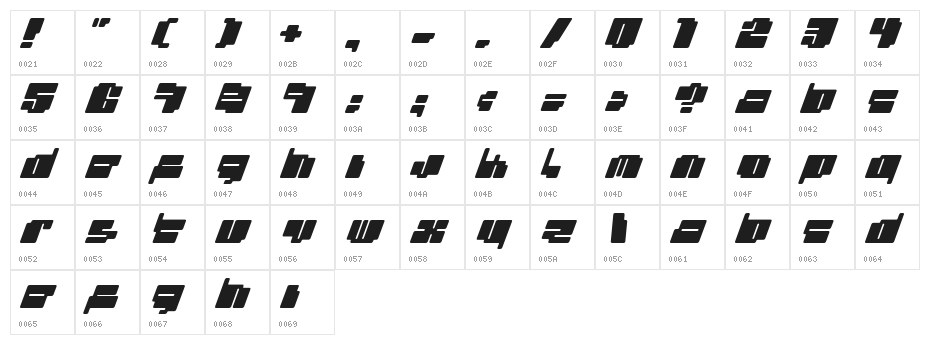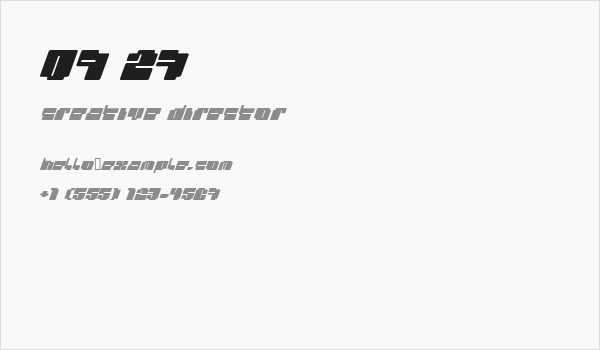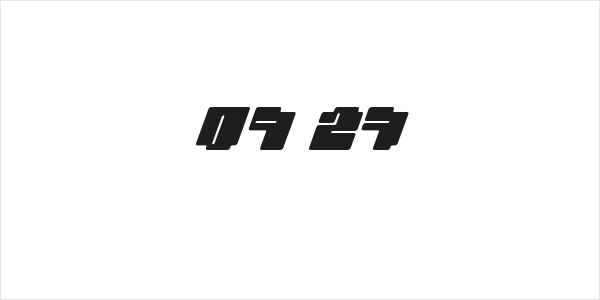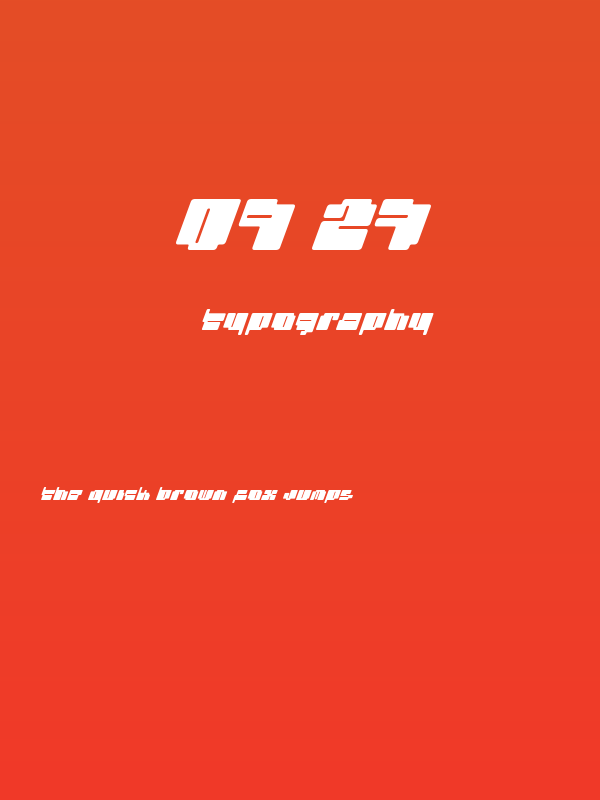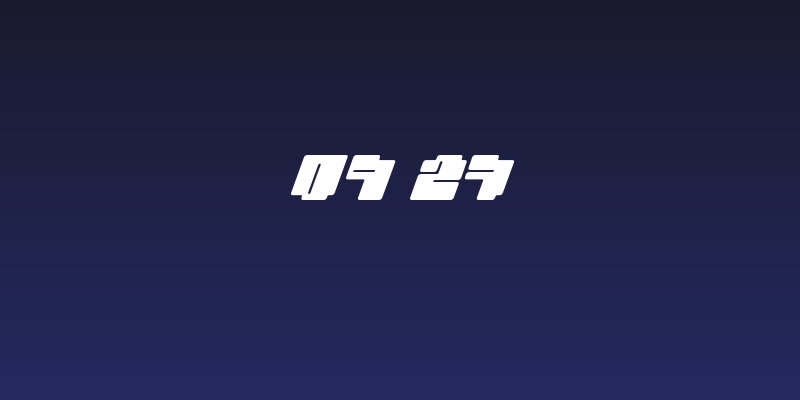
09 27 Font
09 27 Description
This font features a bold, futuristic style with a strong geometric influence. The characters are angular and blocky, giving a sense of speed and modernity. The uppercase and lowercase letters share a consistent style, with sharp edges and a slightly italicized slant that adds dynamism. The numbers and special characters maintain the same aesthetic, ensuring uniformity across all glyphs. The font's design is reminiscent of digital or sci-fi themes, making it ideal for projects that require a modern and edgy look.
Proposed ProjectsIdeal for sci-fi themed designs, video game graphics, tech branding, and futuristic posters.